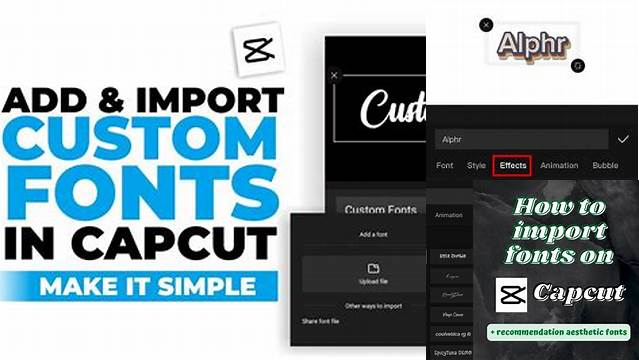
CapCut Font Guide: Download & Install Custom Fonts
Hey guys! Are you ready to level up your CapCut game and make your videos pop? One of the coolest ways to do that is by adding some amazing fonts! But, where do you find them, and how do you get them into CapCut? Don't worry, I'm here to break it down for you step-by-step, so you can start creating videos that are truly unique. This guide is all about how to download fonts into CapCut and will equip you with all the knowledge you need to install custom fonts on both your phone and your computer. Let's dive into how to get new fonts on CapCut and transform your text game.
Why Use Custom Fonts in CapCut?
So, why bother with custom fonts in the first place? Well, the default fonts in CapCut are okay, but they're a bit...basic. Using your own fonts lets you inject some personality into your videos. Think about it: the right font can set the mood, convey a message, and make your videos stand out from the crowd. Imagine using a bold, modern font for a tech review, or a whimsical script for a travel vlog. The possibilities are endless! Custom fonts let you match your brand aesthetic and make your content more memorable. They can also help you follow design trends, add a professional touch to your videos, and they are just plain fun! When you understand how to download fonts into CapCut, you open a world of creative choices.
Here's why custom fonts are a game-changer:
- Enhance Branding: If you're building a brand, using specific fonts helps establish a consistent visual identity across all your content.
- Express Creativity: Tired of the same old look? Custom fonts allow you to explore different styles and aesthetics.
- Improve Readability: The right font can make your text more readable, especially on mobile screens.
- Stay Updated: The world of typography is constantly evolving. Downloading new fonts lets you keep up with current design trends.
- Unique Appeal: Using unique fonts makes your content stand out in a sea of videos.
Getting to grips with how to download fonts into CapCut is like getting a super power, you can transform your content and make it more engaging.
- Creative Market: For more premium options, check out Creative Market. You'll find a wide range of fonts created by independent designers, so you can find unique and high-quality options. While the fonts on Creative Market aren't free, they often come with commercial licenses, making them perfect for professional projects.
When choosing a font, consider its style, readability, and how it complements your video content. Keep in mind that some fonts might not be suitable for all types of content or for all users. Understanding where and how to download fonts into CapCut gives you a wide variety of fonts to choose from. With so many resources available, finding the perfect font is a breeze! Just remember to always check the licensing information before you download and use a font, ensuring you can use it legally.
Downloading Fonts for Your Phone (Android & iOS)
Alright, let's get into the nitty-gritty of how to download fonts into CapCut on your phone (Android and iOS). The process is pretty similar on both platforms, so I'll cover the general steps. Keep in mind that you'll need to download a font file, usually in a .ttf or .otf format.
Here's how it works:
- Find and Download Your Font: Go to one of the font websites mentioned above (or any other site you trust). Download your chosen font. Make sure it's in a .ttf or .otf format, as these are the most common and compatible. When the download is complete, the font file will usually be found in your 'Downloads' folder, or whatever location you've set as your default download location.
- Unzip the Font File (if needed): Often, fonts come in a zipped folder. If so, you'll need to unzip it before you can use the font. On Android, you can use a file manager app like Files by Google. On iOS, you can use the built-in Files app, or download a third-party app like iZip.
- Transfer the Font to Your Phone's Internal Storage: This is where it gets a little tricky. CapCut doesn't directly let you import fonts from your phone's file system. Instead, you'll typically use a third-party app. There are apps available on both Android and iOS that allow you to install custom fonts. Search in your app store for 'font installer' or 'font manager'. Some popular apps include iFont (iOS) and Font Manager (Android).
- Install the Font: Open the font installer app you downloaded. The app will likely scan your device for font files. Then, navigate to the location where you saved your downloaded font file. Tap on the font file to install it. Follow the on-screen instructions; this usually involves granting the app permissions to access your device storage.
- Open CapCut and Add Text: Open your CapCut project, or start a new one. Tap on the 'Text' option in the bottom menu and choose 'Add text'. Type in your text, and then tap on the font style. You will see a list of available fonts, including your newly installed font. If you don't see it, try closing and reopening CapCut. Experiment with your new fonts, resize, and position them until they look perfect for your video.
That's it! You've successfully learned how to download fonts into CapCut on your phone. Enjoy adding unique and personalized text to your video projects!
Downloading Fonts for CapCut on PC
Guys, getting new fonts onto CapCut on your computer is a bit simpler than on a phone. The process is pretty straightforward, especially if you're using a Windows or Mac system. Here's a step-by-step guide on how to download fonts into CapCut on your PC:
- Download Your Fonts: Similar to the phone process, start by finding your font. Head over to the sites I mentioned earlier (Google Fonts, DaFont, etc.). Find the perfect font and download the font file to your computer. These files typically come in .ttf or .otf formats.
- Install the Font on Your Operating System: The key here is that CapCut on your PC uses the fonts installed on your system. So, you need to install the font on Windows or macOS.
- Windows: Double-click the font file. A preview of the font will open. Click the 'Install' button at the top. The font is then installed and available for use. Alternatively, you can right-click the font file and select 'Install'.
- macOS: Double-click the font file. This will open the Font Book app. Click 'Install Font'. The font will be installed and ready to go.
- Open CapCut: Open your CapCut project, or create a new one. If CapCut was already open, you might need to close and reopen it to recognize the new font.
- Add Text and Choose Your Font: Click on the 'Text' option in the bottom menu. Click the 'Add Text' button. Type your text. In the font selection menu, look for your newly installed font. If the font doesn't appear, double-check that you've installed it correctly in your operating system and restart CapCut. It should be available alongside the default fonts.
And that's how you download fonts into CapCut on your computer! You can now add custom fonts to your videos and give them a more professional look. Remember, the more familiar you get with how to download fonts into CapCut on both PC and mobile, the more control you gain over your creative projects.
Troubleshooting Font Issues in CapCut
Sometimes, things don't go as planned. Here's how to troubleshoot common font issues in CapCut:
- Font Not Showing Up: This is the most common problem. Make sure you've installed the font correctly on your operating system or via a font installer app. On PC, try restarting CapCut. On mobile, try closing and reopening the app. Also, make sure that the font format (.ttf or .otf) is supported by CapCut.
- Font Displaying Incorrectly: If the font looks distorted or incorrect, the file might be corrupted. Try downloading the font again from the source. Also, make sure you are using the correct font file (if multiple files were in the download). Verify that the font is correctly installed on your operating system.
- Licensing Issues: Be mindful of the font license. Some fonts are only for personal use, while others require a commercial license if you use them in videos for business. Always check the license terms before using a font to ensure you comply with the usage restrictions.
- Incompatibility: Not all fonts are created equal. Some fonts might not be compatible with CapCut. If you're having trouble with a specific font, try a different one or contact the font creator for support.
- Phone Storage: If you are experiencing issues on your phone, ensure you have sufficient storage space. Sometimes, a lack of storage can prevent the proper installation of fonts.
Troubleshooting is part of the creative process, but by knowing these common problems, you'll be well-equipped to fix any issues that arise while learning how to download fonts into CapCut.
Advanced Tips for Using Fonts in CapCut
Once you've mastered how to download fonts into CapCut, you can take your video editing to the next level with these advanced tips:
- Font Combinations: Don't be afraid to mix and match fonts! Pairing a bold header font with a clean, readable body font can create a visually appealing hierarchy. Websites like Canva and FontPair offer great font pairing suggestions to spark your creativity. Experiment with different combinations to see what works best for your style.
- Text Effects: CapCut offers a range of text effects, like shadows, outlines, and backgrounds. Combine these with your custom fonts to create eye-catching text animations and titles. Adjust the color, opacity, and size to perfectly match your video's aesthetic.
- Font Animation: CapCut has text animation features that enable dynamic text presentations. Use these features to add entrance animations, exit animations, and loop animations to your text. This can make your videos more engaging and professional. Utilize various animation options to make your text stand out. This is especially effective when you are explaining information, introducing topics, or highlighting key points.
- Font Hierarchy: Use different font sizes, weights, and styles to create a visual hierarchy within your text. This helps guide the viewer's eye and organize information in a clear and concise manner. Use a larger, bolder font for headings and a smaller, lighter font for body text.
- Consistent Branding: If you have a brand, use the same fonts across all your videos to maintain a consistent look and feel. This helps viewers recognize your content and builds brand recognition. Develop a style guide for your fonts, including their sizes, colors, and uses.
- Experiment with Kerning and Tracking: Kerning is the space between individual letters, and tracking is the spacing between all the letters in a word or line of text. Adjust these settings to improve the readability and visual appeal of your text. Some fonts may benefit from increased or decreased kerning to make them look more balanced.
- Font Styles: Use italics, bold, and underlines strategically to emphasize important words or phrases. But, don't overdo it. Too much emphasis can be distracting. These styles enhance the overall design and help to direct the viewer's attention to the most important information.
- Consider Background: Ensure your font choice is readable against the video background. Consider using a background color or outline to increase contrast and readability. This is especially important if the video background is busy or includes bright colors. Use contrasting colors for maximum impact.
By implementing these advanced tips, you can take your CapCut videos from good to great and use your fonts to create professional-looking videos. Remember, how to download fonts into CapCut is only the first step. Now, start creating amazing content that shines!
Conclusion: Unleash Your Creativity with Custom Fonts
Alright, guys, you've learned the ins and outs of how to download fonts into CapCut. You're now equipped with the knowledge to find, download, and install custom fonts on both your phone and your computer, giving you a whole new level of creative control. Remember to always check the license of the fonts you download and experiment with different font combinations and text effects to find the style that best suits your vision.
Keep creating, keep experimenting, and most importantly, have fun! The world of video editing is vast and exciting, and now, with your new font skills, you're ready to make your mark. Remember the process of how to download fonts into CapCut and let your creativity shine.